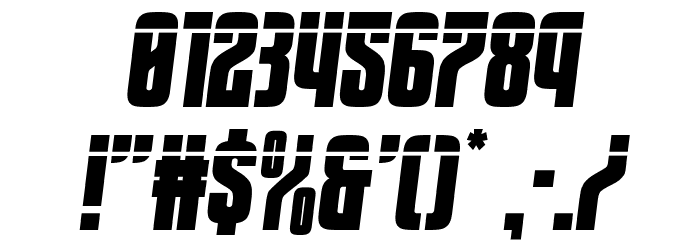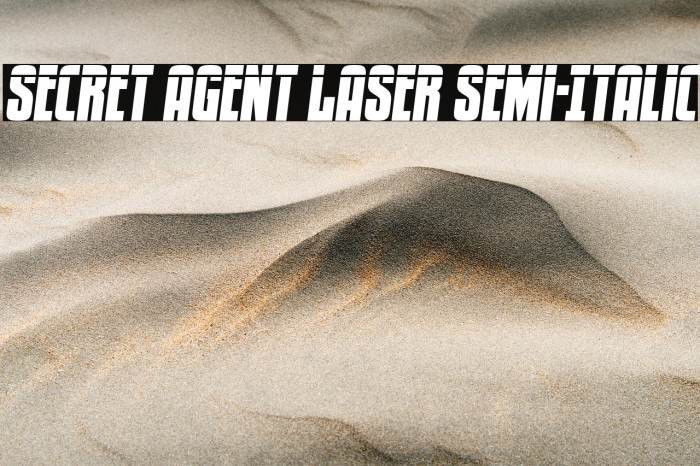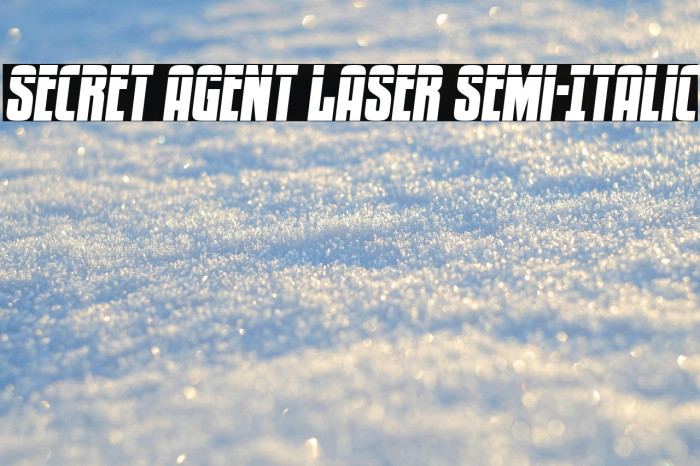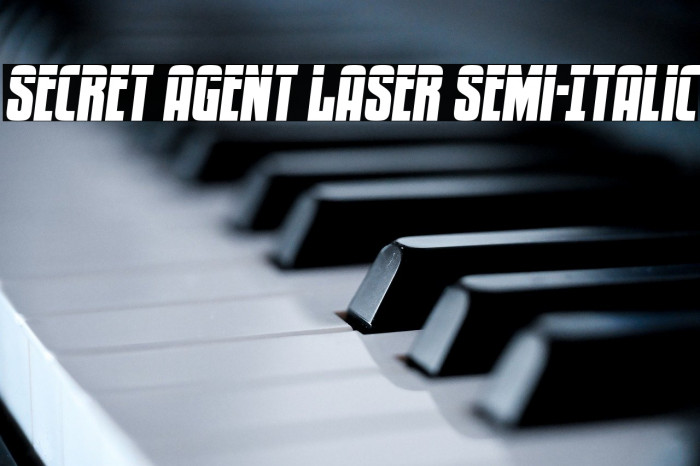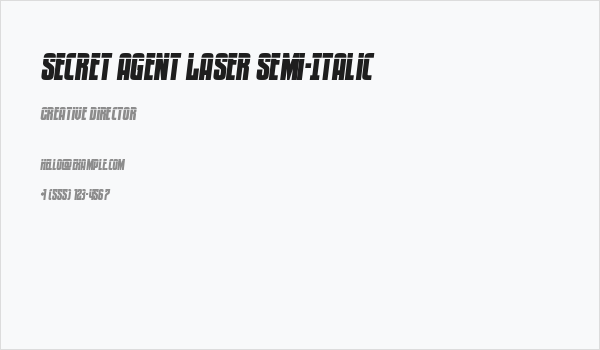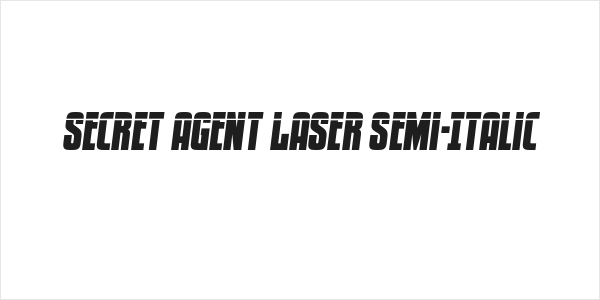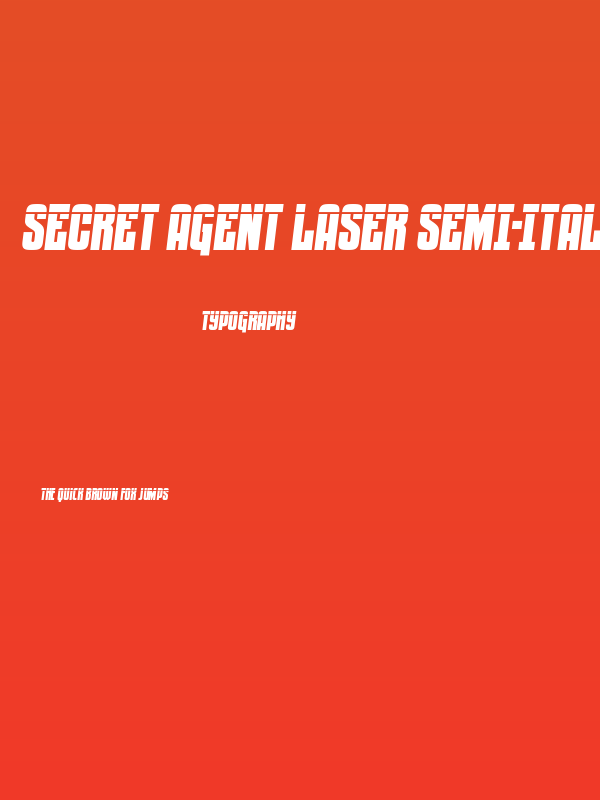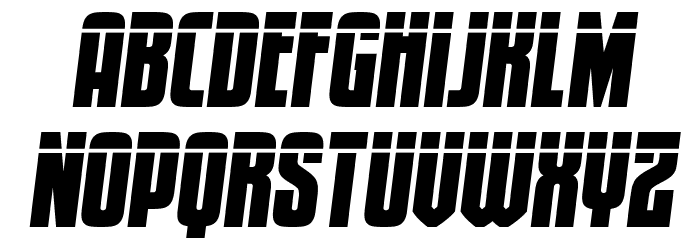
Secret Agent Laser Semi-Italic Font
Secret Agent Laser Semi-Italic Description
This font exhibits a bold and dynamic style with a futuristic flair. The characters are sharply angled and slightly italicized, giving a sense of motion and urgency. The uppercase and lowercase letters maintain a consistent weight, contributing to a cohesive and powerful appearance. The numbers and special characters are designed with the same boldness, ensuring uniformity across all glyphs. The font's design is reminiscent of action and adventure themes, making it ideal for projects that require a strong visual impact.